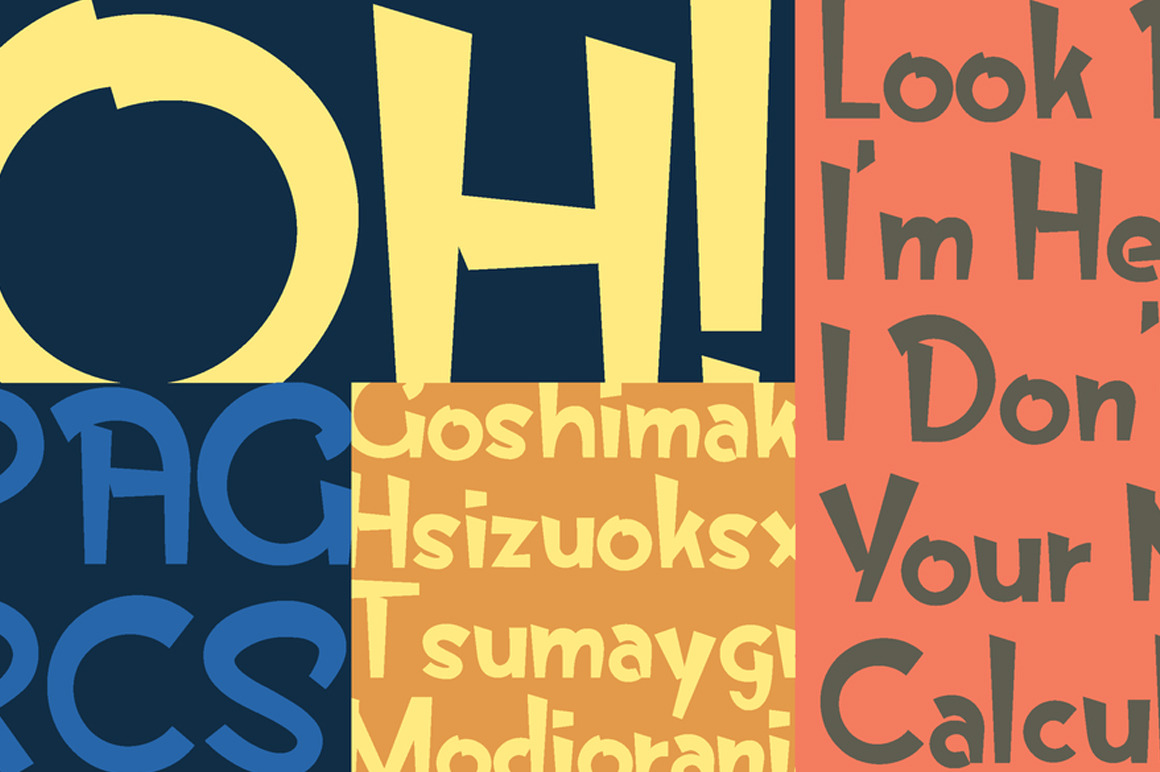
Lemon Days Typeface
LemonDays is a humanist san serif inspired by retro diner signs from the 1950's and 60's. The typeface is characterized by it's bold brush strokes which are thicker at the top and thinner towards the bottom of each form. The name represents a typeface that alludes to the experience of a refreshing lemonade stand in the summertime. LemonDays also works well when used in a graphic novel or comic book setting.